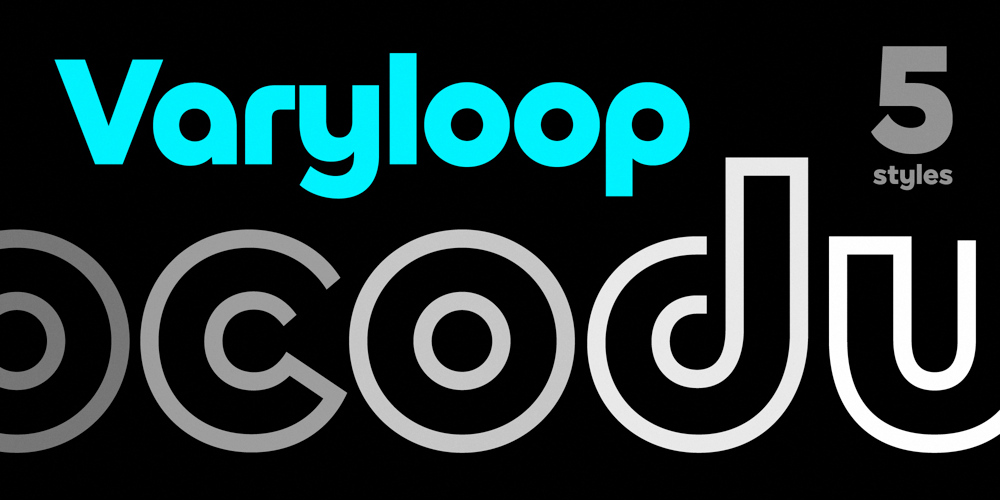
Varyloop
Varyloop font
Varyloop Font Family was designed by Roman Melikhov and published by Roman Melikhov. Varyloop contains 5 styles and family package options. Varyloop font family is suitable for creating minimalistic logos, wordmarks, titles, taglines. It consists of one solid font and four outline fonts. Each style has a number of alternate characters.You can mix different styles and alternate characters to get an interesting result.For any questions about the font please contact: arbuzzu@gmail.com